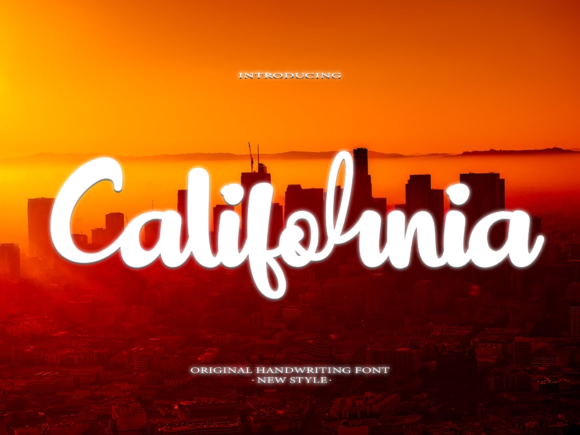
The California Font: A Sweet Handwritten Delight for Designers
I’ll never forget the time I was working on a branding project for a trendy coffee shop in Los Angeles. I had spent hours perfecting the logo design, but something was missing. The text just didn’t feel like it fit the vibe of the brand. That’s when I stumbled upon the California font, a sweet handwritten font that instantly captured the laid-back, West Coast feel I was going for.
A Personal Review of California Font
So, what makes the California font so special? Let’s dive into the good stuff! 😊
- ✨ Smooth, handwritten feel: The California font has a beautiful, fluid quality that makes it perfect for creating a personal touch in your designs.
- ✅ Highly legible: Even at smaller sizes, the font remains clear and easy to read, making it versatile for a range of applications.
- 💫 Extensive character set: With a wide range of characters, including glyphs and stylistic alternates, you can add variety and interest to your text.
While the California font is amazing, there are a few things to keep in mind:
- ⚠️ Limited use in very formal contexts: The handwritten nature of the font makes it less suitable for very formal or corporate designs.
- 🤔 Some characters may require adjustment: Depending on the context, you might need to tweak certain characters to ensure optimal spacing and alignment.
Designer Inspiration:
The California font was created with the goal of capturing the essence of the Golden State: laid-back, creative, and full of life. The designer, inspired by the state’s stunning natural beauty and vibrant culture, crafted a font that’s perfect for adding a touch of West Coast cool to your designs.
| What is the California font? | The California font is a sweet handwritten font designed to capture the laid-back, creative vibe of the Golden State. |